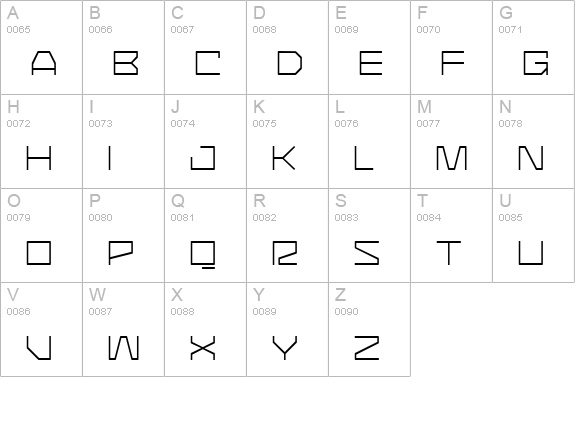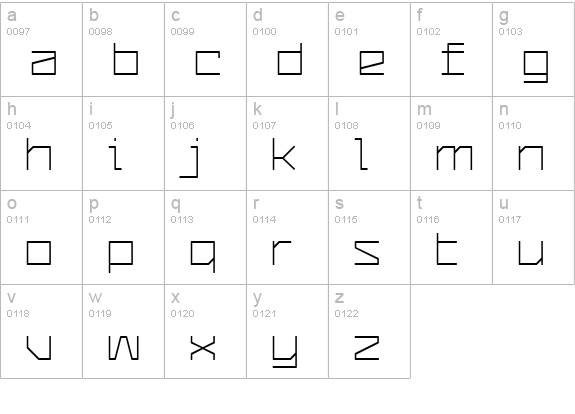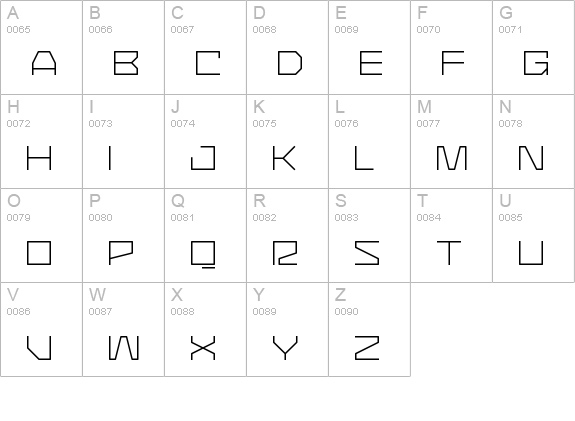
CommunityService Light is a refined, elegant variant in the CommunityService typeface family \xE2\x80\x94 well suited to elegant body text, refined sub-headings, and luxury branding.
Introducing CommunityService Light font, a modern and versatile typeface perfect for a wide range of design projects. This elegant sans-serif font features clean lines and a contemporary feel, making it ideal for both digital and print applications. With its sleek and minimalistic design, CommunityService Light font exudes professionalism and sophistication, making it a great choice for branding, advertising, and editorial design. One of the best things about CommunityService Light font is that it is available for free download at FontsMarket.com. This means that you can easily access this high-quality font without any cost, making it a valuable addition to your font library. Whether you're a designer looking to enhance your projects or a business owner seeking a stylish typeface for your brand identity, CommunityService Light font offers the perfect solution. Don't miss out on the opportunity to elevate your designs with the elegant and timeless CommunityService Light font. Download it for free today at FontsMarket.com and discover the endless creative possibilities this font has to offer.